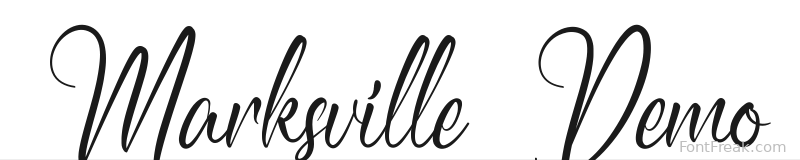
Marksville Demo
About Marksville Demo
Marksville Demo by Noah Type is a captivating script font that exudes elegance and charm. Its flowing, handwritten style features a unique combination of graceful curves and dynamic strokes, making it an eye-catching choice for a variety of design projects. The stroke weight is consistent, with subtle variations that add a touch of sophistication, while the overall spacing allows for easy readability, ensuring that your message comes across clearly.
This font is particularly well-suited for use in wedding invitations, where its romantic flair can beautifully complement the occasion. Additionally, it shines in branding materials for small businesses, offering a personal and inviting touch that can attract customers. Marksville Demo is also ideal for restaurant menus, adding a creative flair that enhances the dining experience. Furthermore, content creators can leverage this font in social media graphics, giving their posts a stylish and contemporary feel.
The target audience for Marksville Demo includes graphic designers seeking to add a touch of creativity to their projects, small business owners looking for a unique brand identity, and content creators who aim to enhance their visual storytelling. This font's distinctive style makes it a versatile tool for anyone looking to make a memorable impression.
What sets the Marksville Demo font apart is its blend of artistic flair and practical usability. It manages to convey personality and sophistication while remaining accessible and versatile for various applications. The Marksville Demo font free download allows users to experiment with this stunning typeface without any cost, making it an excellent addition to any designer's toolkit. With its charismatic presence and thoughtful design, Marksville Demo is sure to elevate any project it graces.